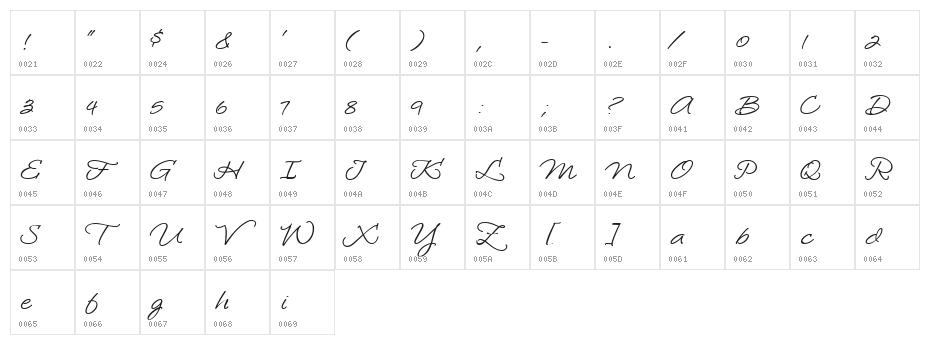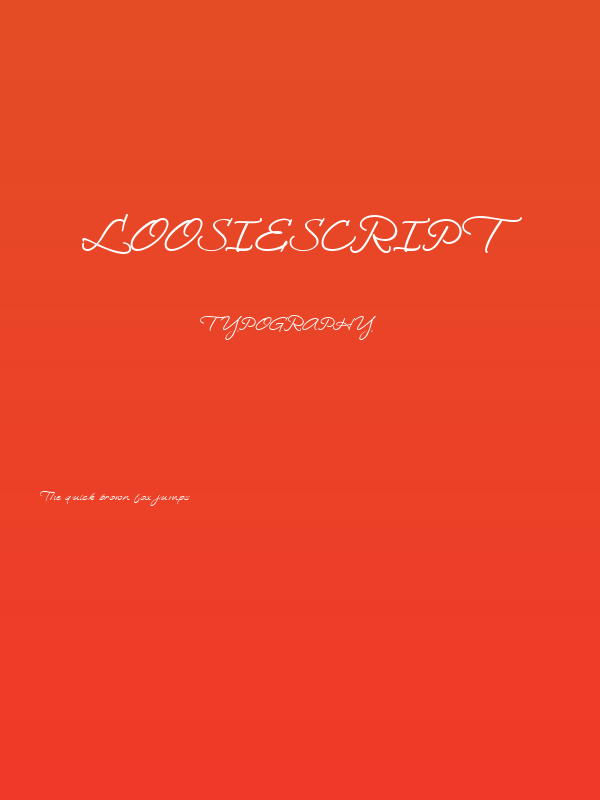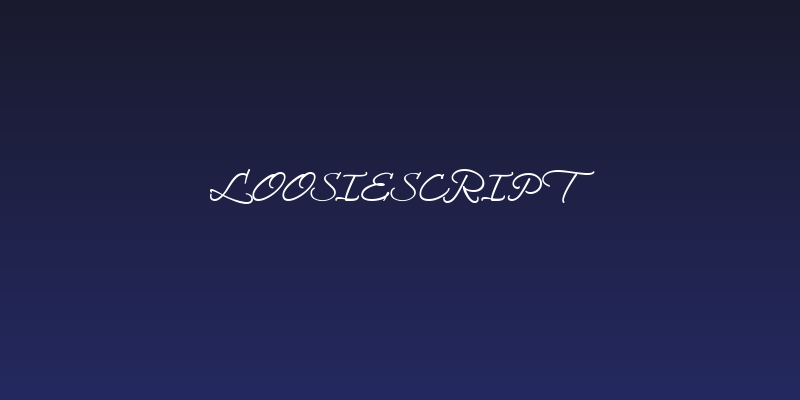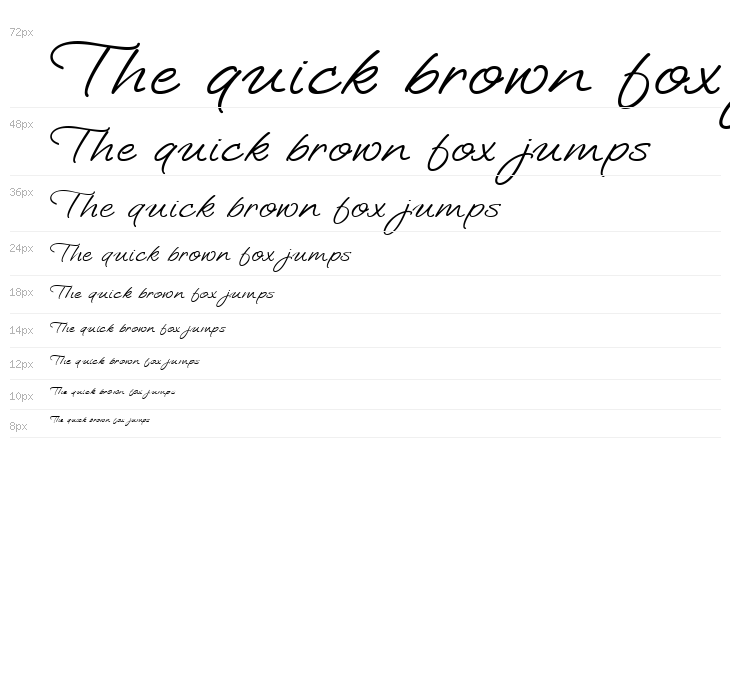
LoosieScript Font
LoosieScript Description
This font exudes a casual and elegant script style, characterized by its flowing, cursive letterforms. The uppercase letters are slightly more elaborate, with graceful loops and swashes that add a touch of sophistication. The lowercase letters maintain a consistent flow, enhancing readability while retaining a handwritten charm. The numerals are clear and well-proportioned, matching the overall aesthetic of the script. Special characters are thoughtfully designed, integrating seamlessly with the rest of the typeface. This font is perfect for projects that require a personal, yet polished touch, such as invitations, greeting cards, or branding materials.
| Overall Style | Elegant, Casual |
| Use Case | Headlines, Logos, Invitations |
| Proposed Projects | Ideal for invitations, greeting cards, branding, and personal projects. |